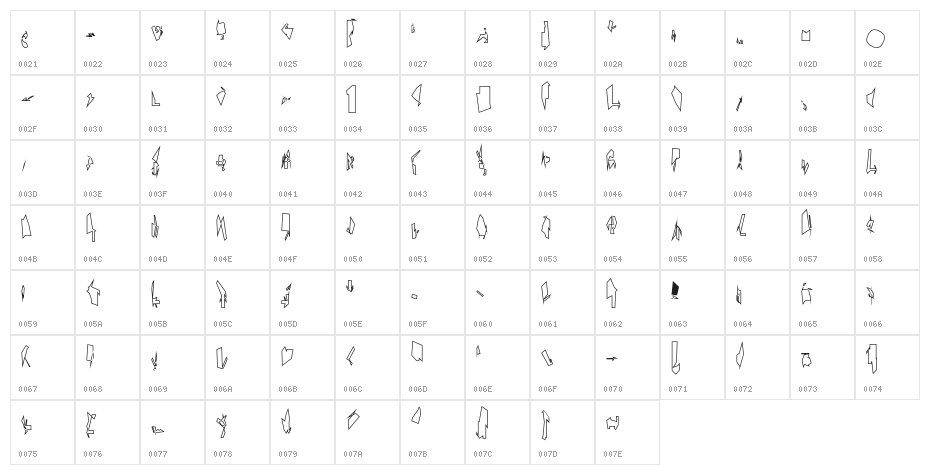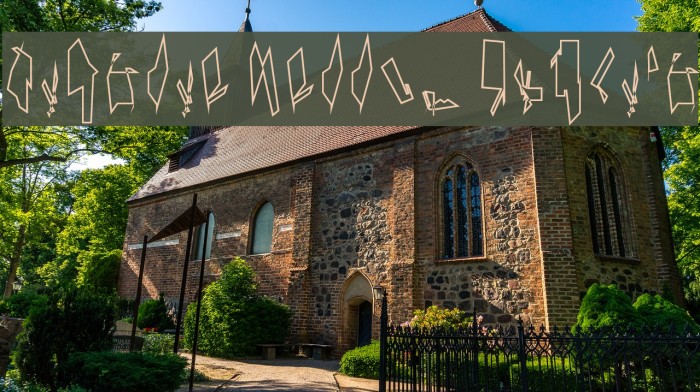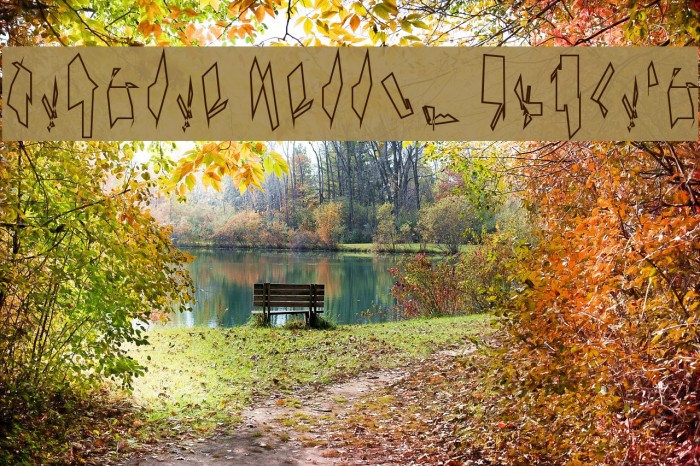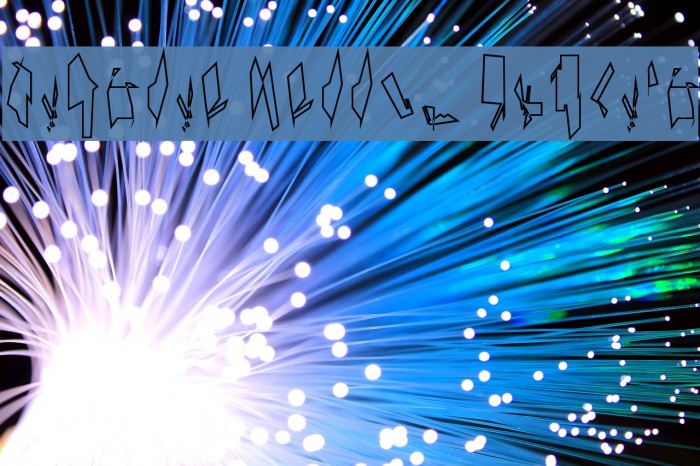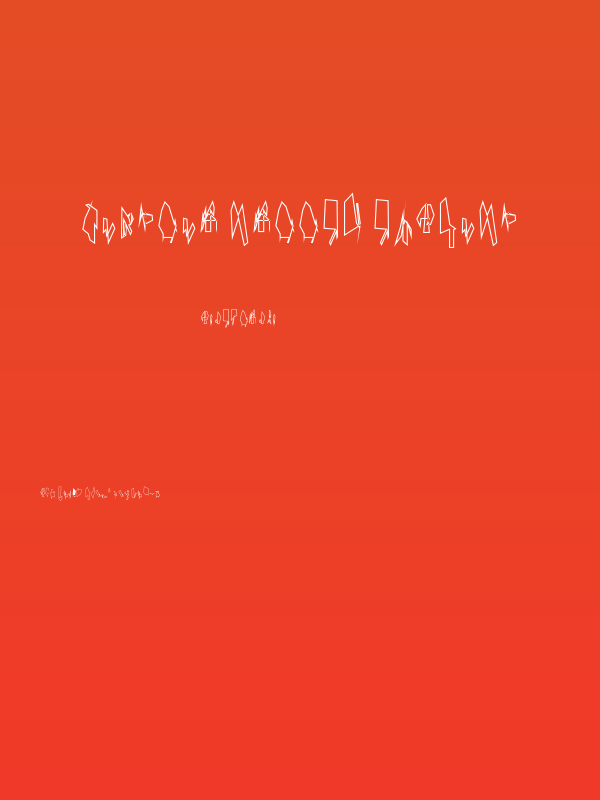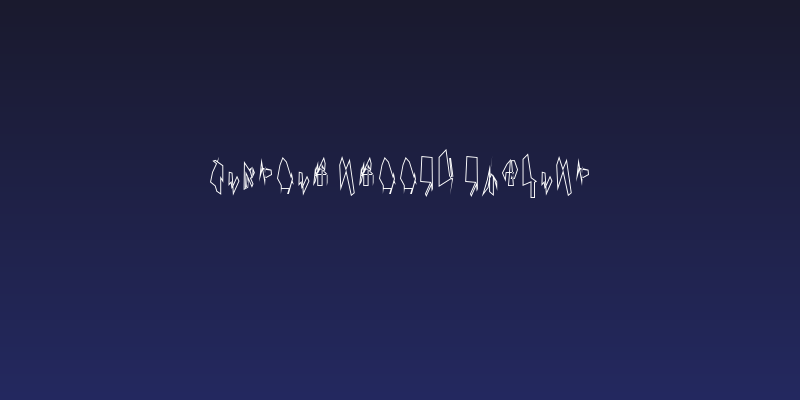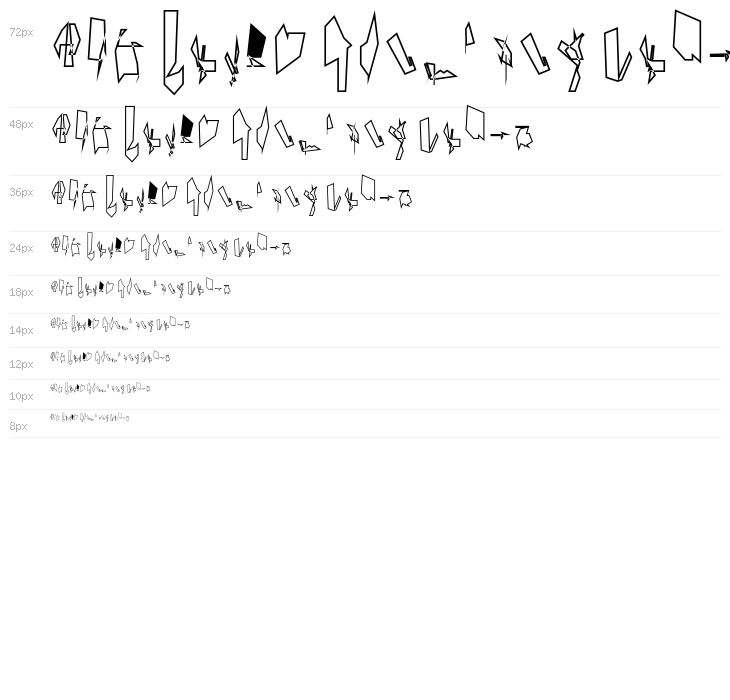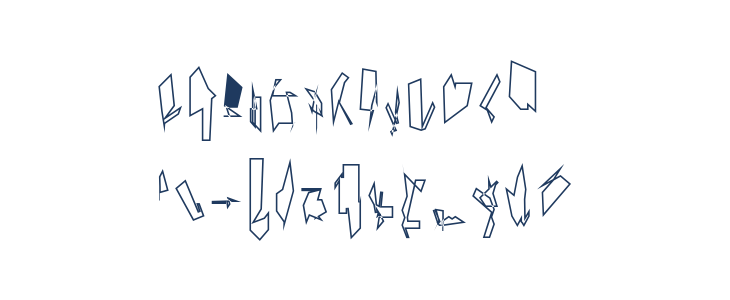
Siberia Narrow Outline Font
Siberia Narrow Outline Description
This font features a highly abstract and geometric design, characterized by sharp angles and irregular shapes. Each character is outlined, creating a striking and bold appearance. The letters and numbers are constructed with a narrow, elongated form, giving them a unique and edgy look. The font's unconventional style makes it stand out, with each character appearing almost like a piece of abstract art. The special characters follow the same design principles, maintaining consistency throughout the set. This font is not suitable for body text due to its complexity but can be highly effective in artistic or decorative contexts.
Overall StyleModern, Abstract
Use CaseLogos, Posters, Artistic Designs
Proposed ProjectsIdeal for artistic projects, modern art posters, album covers, or any design requiring a bold, unconventional typeface.